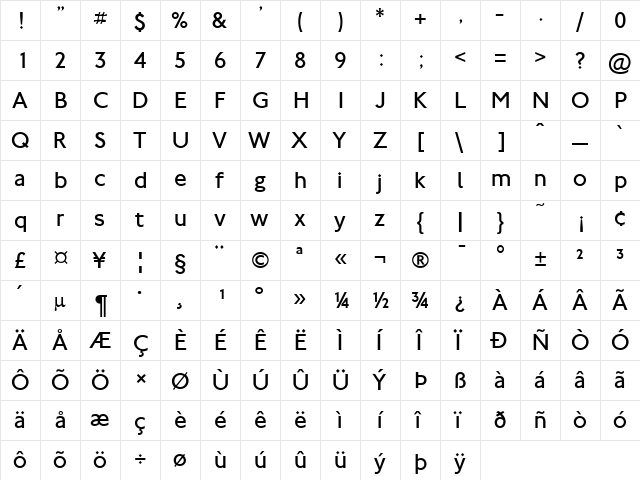
NewJohnstonLight Regular
Design Context for NewJohnstonLight Typeface
NewJohnstonLight offers clean, dependable letterforms without strong stylistic allegiance, making it a practical choice for designers who need flexibility. The delicate stroke weight brings airiness and refinement to layouts.